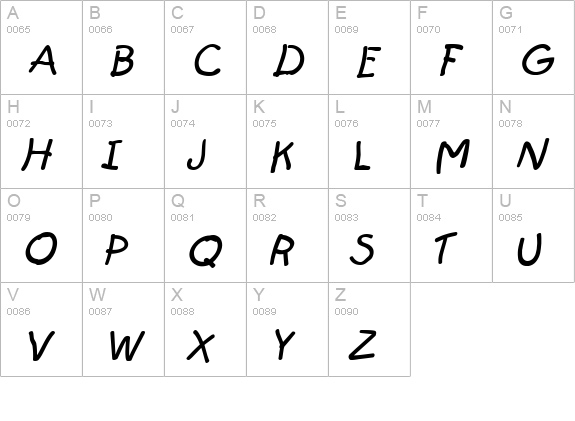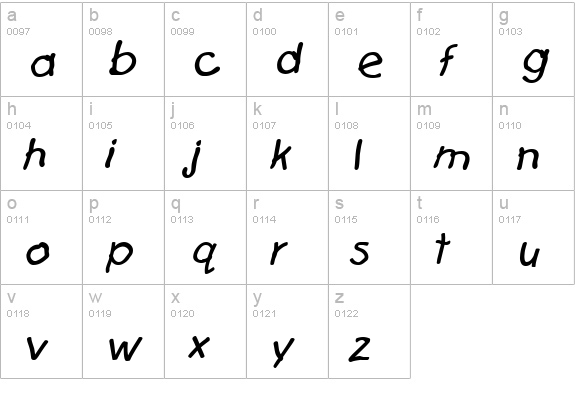
Catchup Italic Font Details
Catchup Italic is a distinctive, italic variant in the Catchup typeface family \xE2\x80\x94 well suited to design and typography projects.
Catchup Italic font is a modern and stylish typeface that exudes elegance and sophistication. With its slanted design and sleek curves, this font is perfect for adding a touch of flair to your projects. Whether you're working on a creative design or crafting professional documents, Catchup Italic font will elevate your work to the next level. The best part is that Catchup Italic font is completely free to download at FontsMarket.com. Yes, you read that right - you can access this stunning font at no cost! Don't miss out on the opportunity to enhance your designs with this beautiful typeface. Download Catchup Italic font today and let your creativity shine!